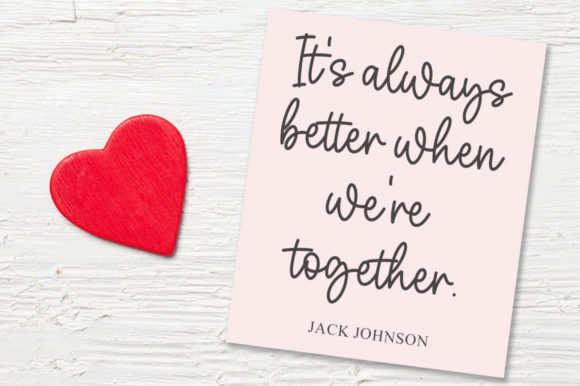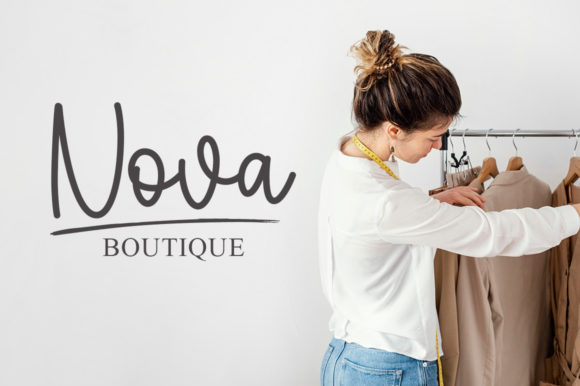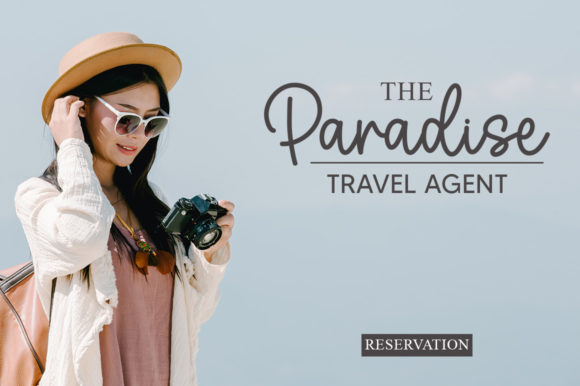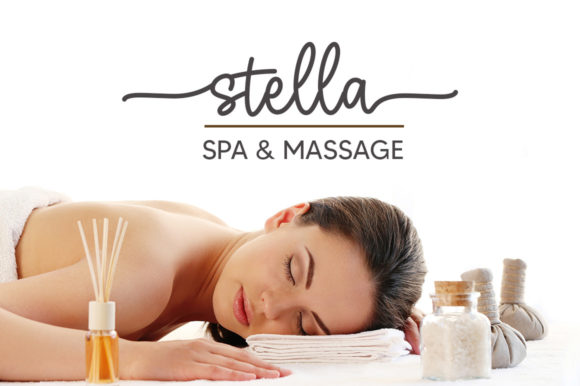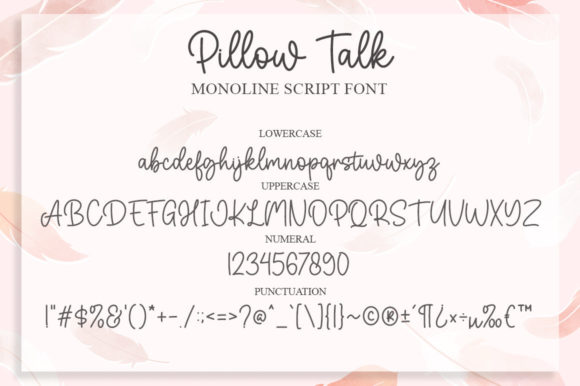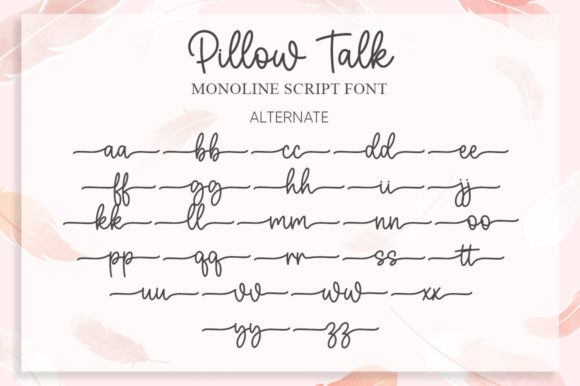
Introduction to Pillow Talk Font
Pillow Talk is a dainty and flowing handwritten font.
Sweet and joyful, this font will be ideal for writing wedding invitations, cards or any other design that may need a romantic, personalized touch Pillow Talk is PUA encoded which means you can access all of the glyphs and swashes with ease.